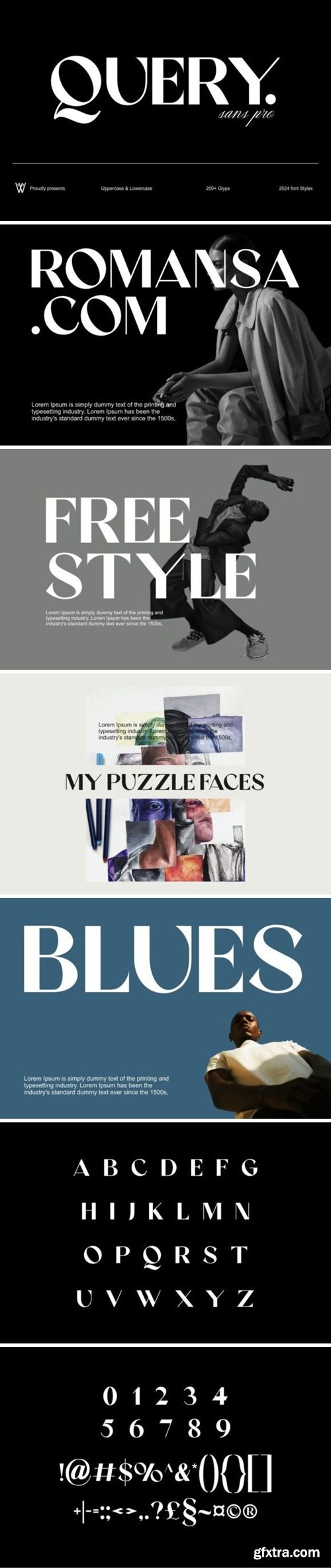
-> Contemporary Elegance: With Query, you can transform branding, advertising, editorial and digital design with its streamlined contours and modern appeal, making it an unmissable selection for your toolbox. -> Wide-Ranging Utility: Whether you’re a designer, marketer, or a typography enthusiast, Query promises to amplify the allure of your creative canvas with its style versatility and refined appearance. -> Comprehensive Character Collection: Offering a full suite of uppercase and lowercase letters, complemented by 200+ distinctive glyphs, Query provides the ultimate degree of design versatility. Embark on the journey of branding, advertising, or digital content creation with Query by your side, bringing an added layer of refinement and chicness to your masterpieces. Opt for the elegance of Query for a modern and wealthy design journey.